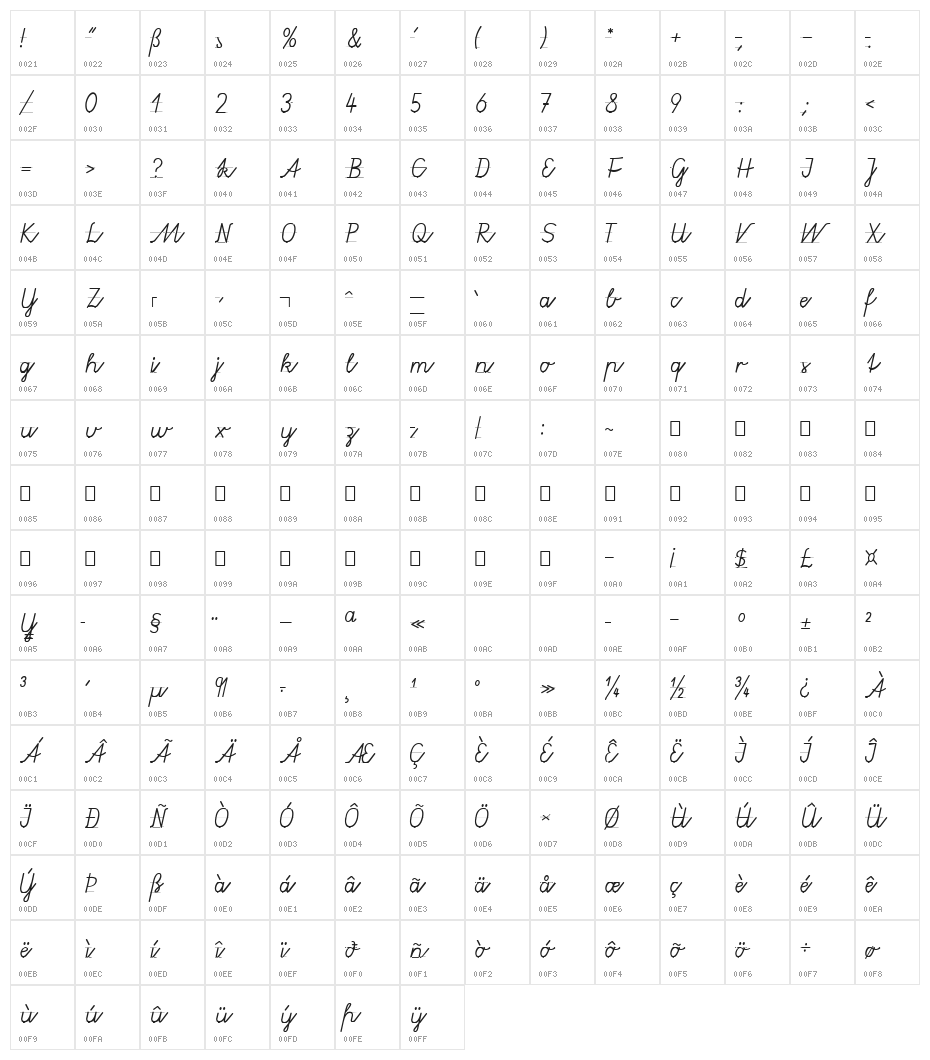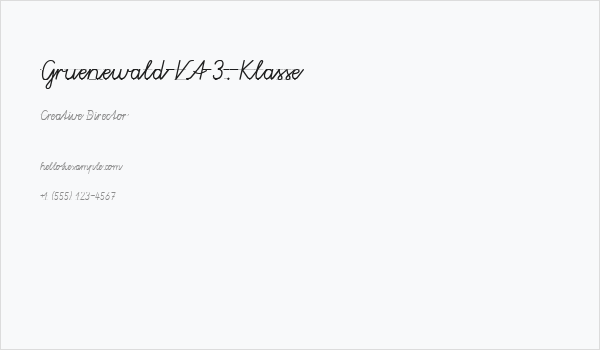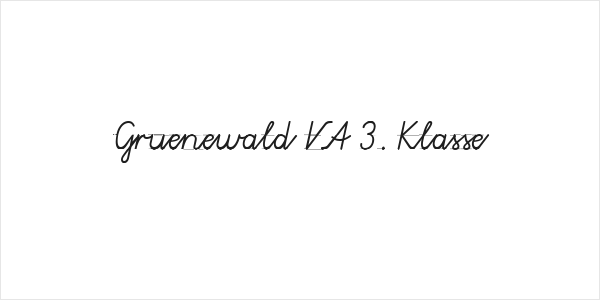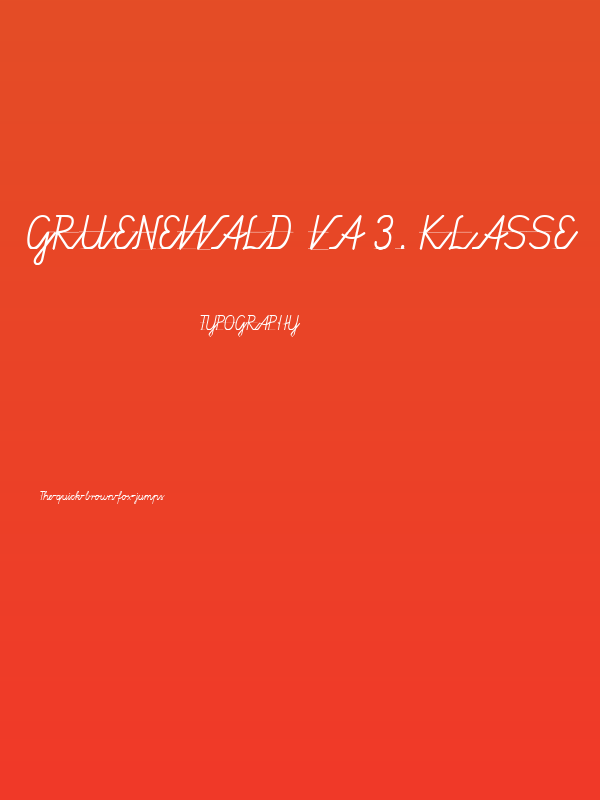
Gruenewald VA 3. Klasse Font
Gruenewald VA 3. Klasse Description
This font features a classic cursive style with a smooth, flowing appearance. The letters are connected, creating a seamless and elegant script that mimics traditional handwriting. The uppercase letters are slightly larger and more pronounced, while the lowercase letters maintain a consistent size and style. The numerals and special characters are designed to match the cursive flow, ensuring a cohesive look across all characters. The font's overall design is both timeless and versatile, making it suitable for a variety of applications where a personal touch is desired.
Overall StyleClassic
Use CaseInvitations, Personal letters, Branding
Proposed ProjectsIdeal for wedding invitations, personal letters, branding materials, and educational materials that require a handwritten touch.